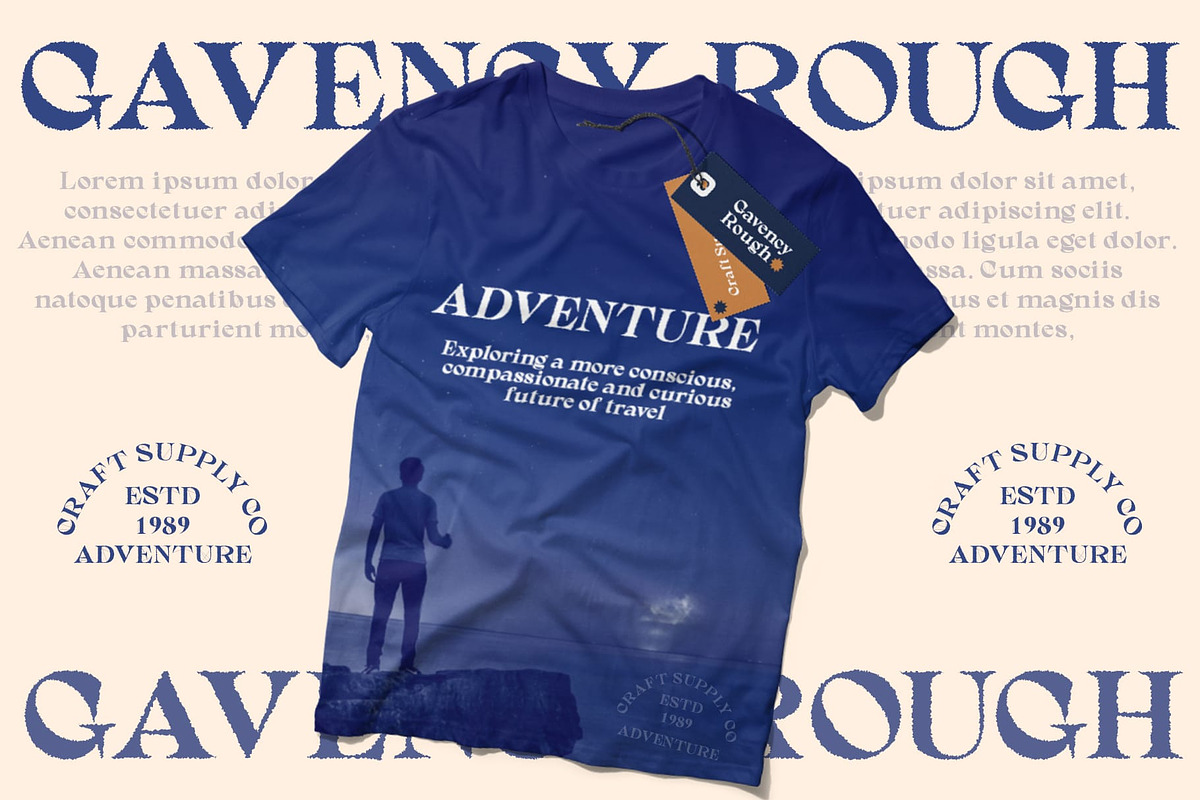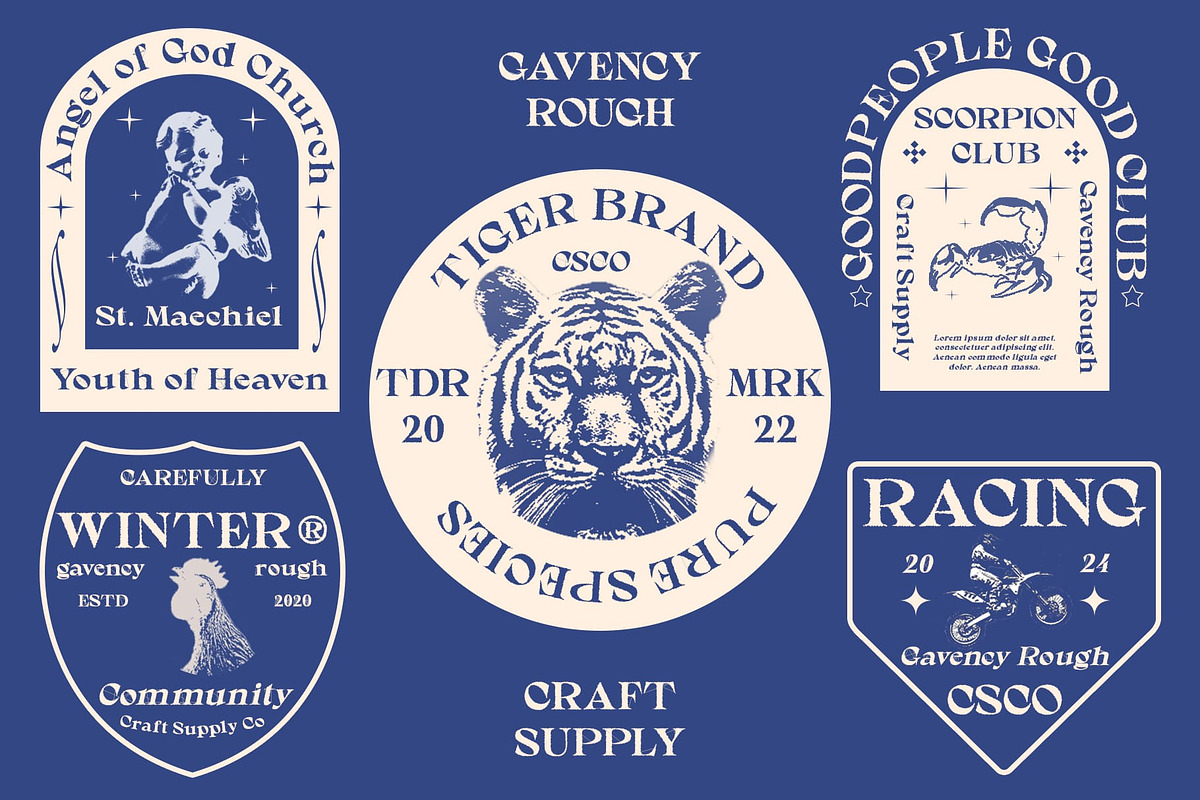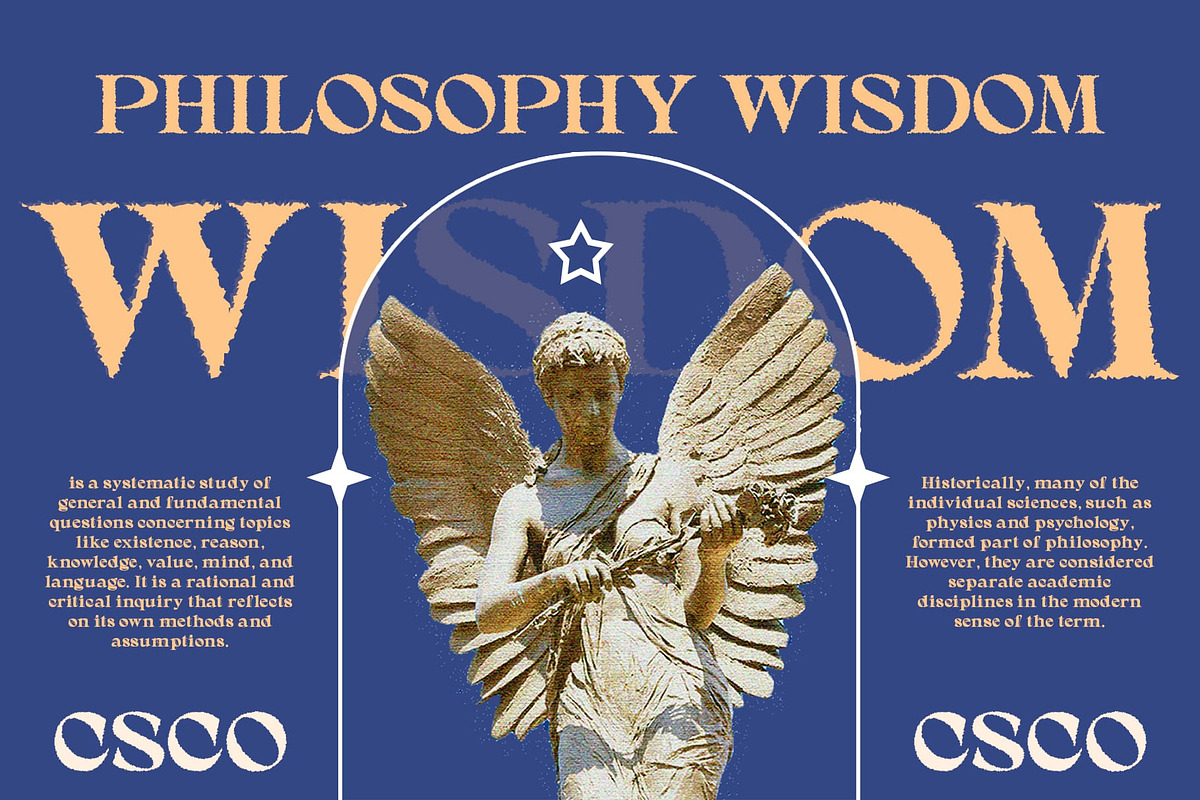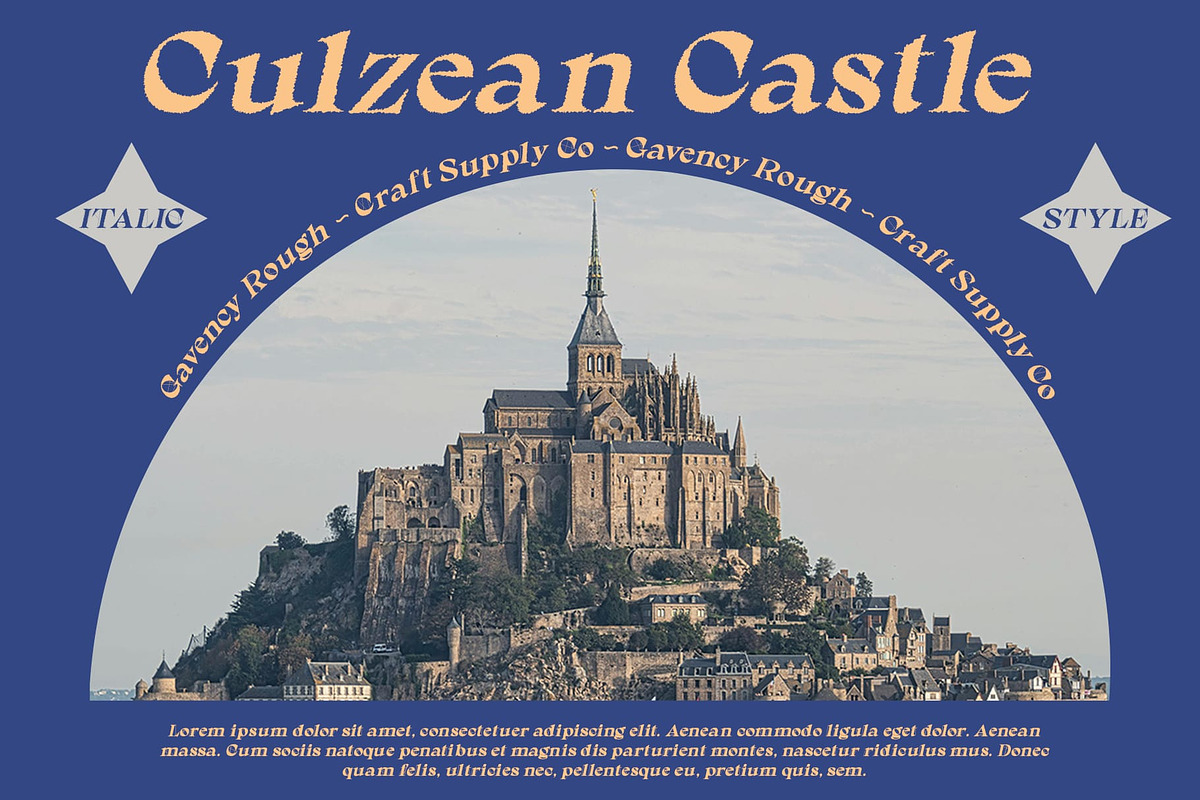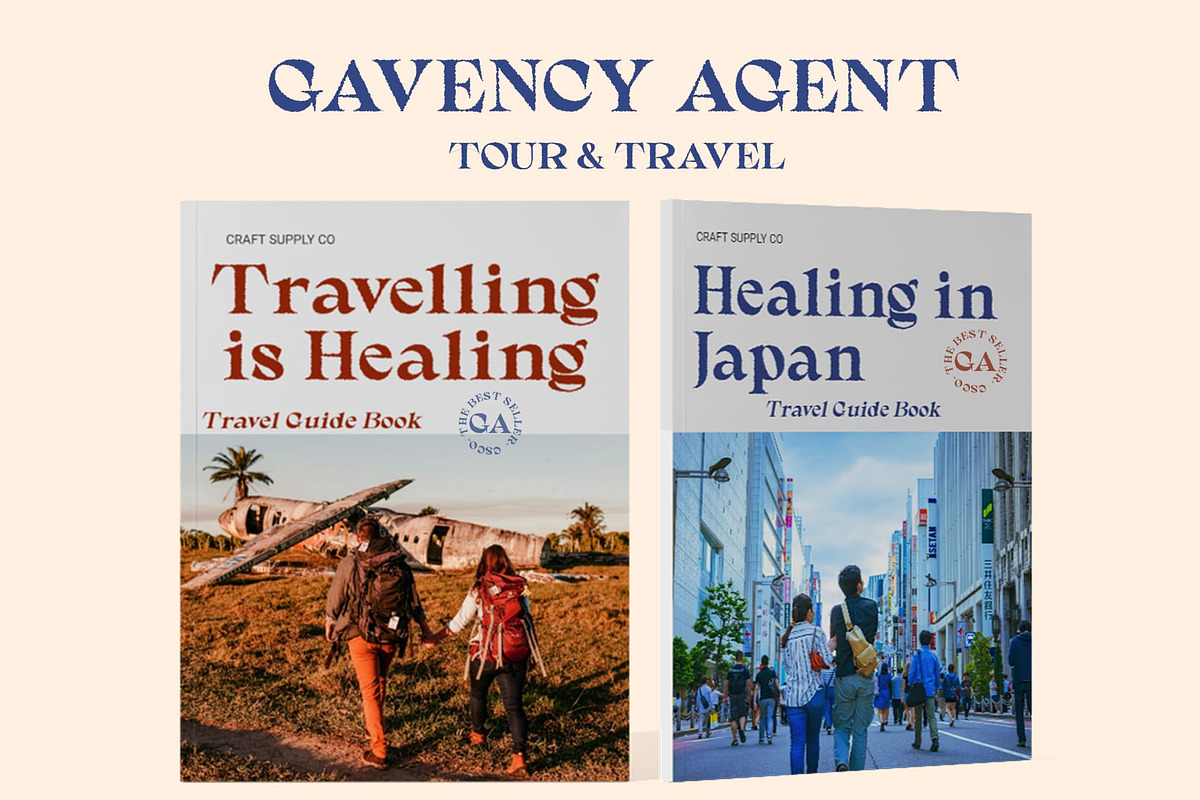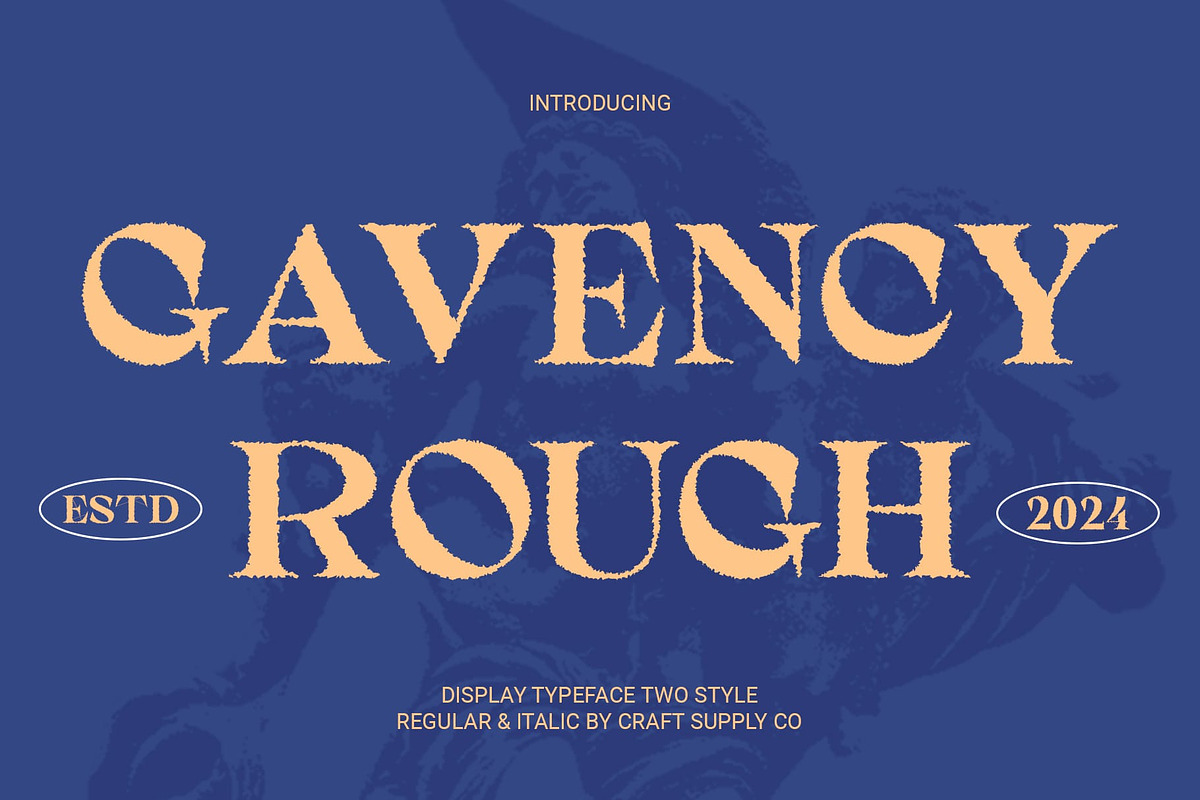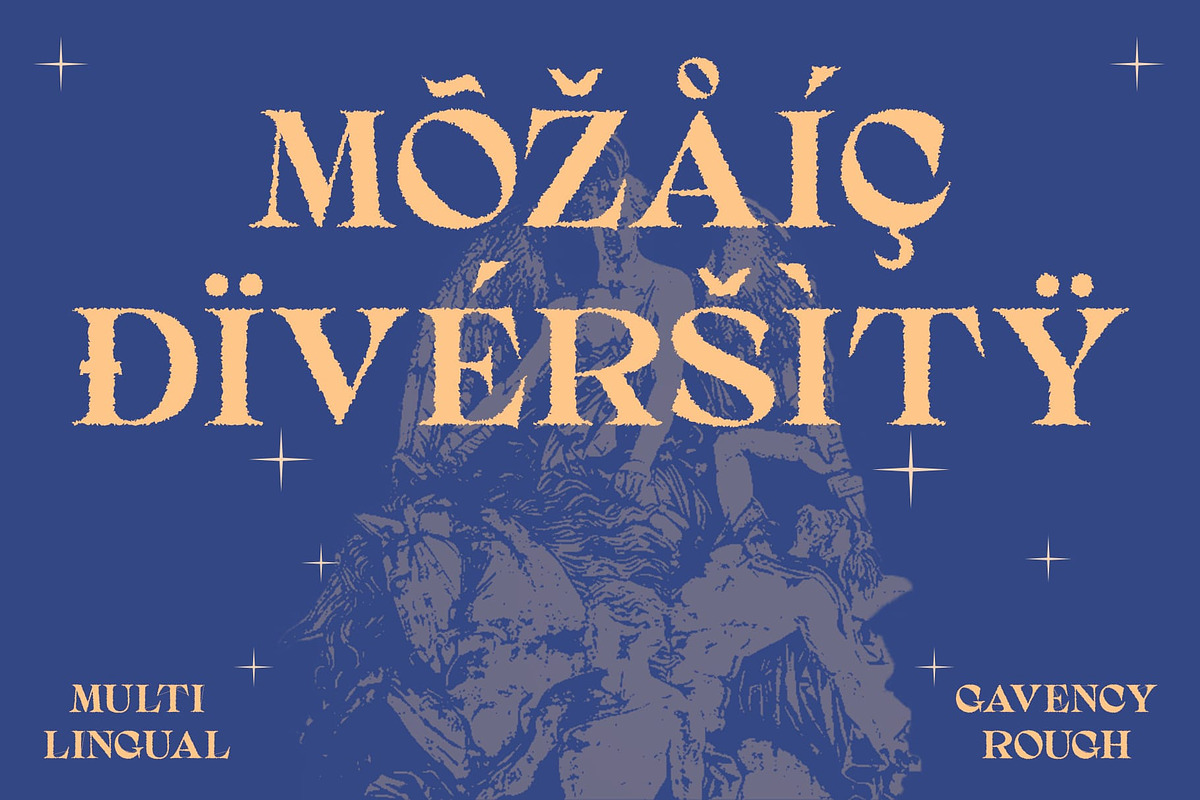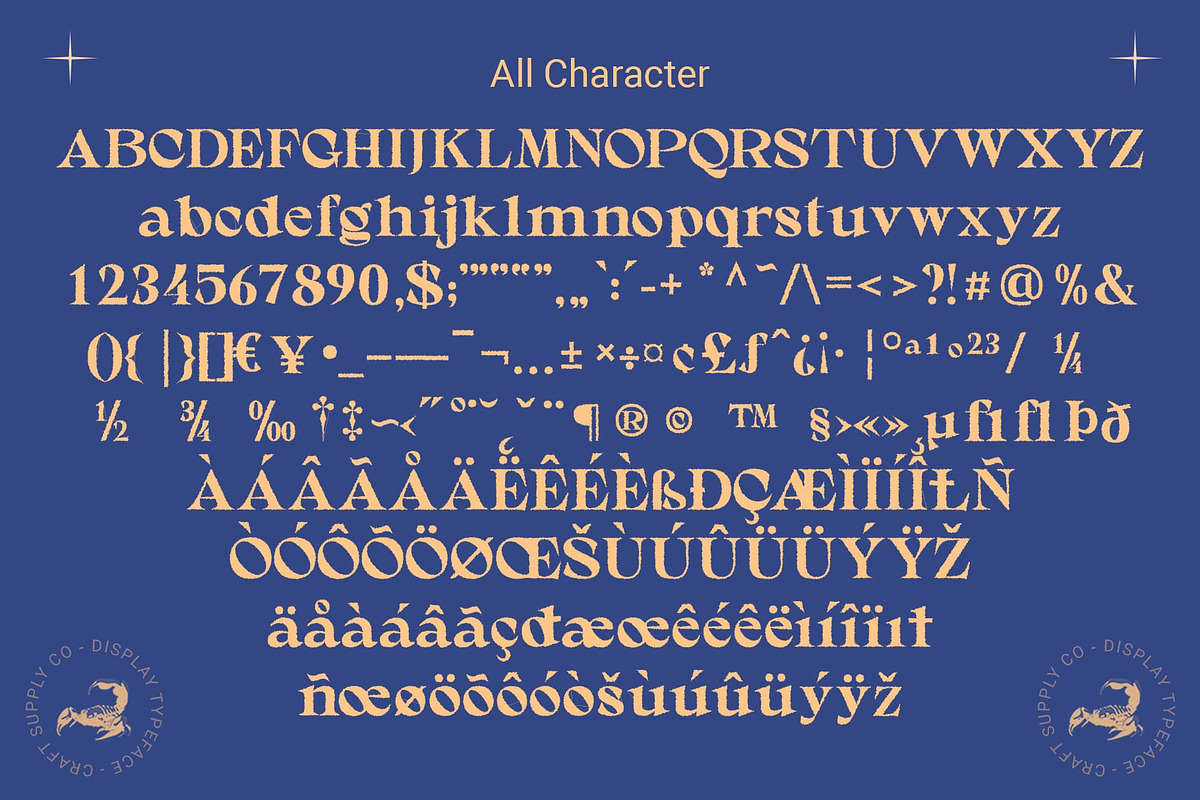
Gavency Rough
Gavency Rough: Vintage Elegance in Display Typography
Distinctive Serif Design Gavency Rough features a striking serif shape with high contrast, exuding elegance and sophistication in every character.
Authentic Vintage Appeal With its rough texture effect, This font evokes a sense of vintage charm, reminiscent of classic typography from bygone eras.
Ideal for Display Projects Tailored for display use, This font is perfect for projects that require a touch of vintage flair, such as branding, posters, and editorial design.
Versatile and Eye-catching Beyond its vintage appeal, This font offers versatility, ensuring eye-catching results across various design applications, from digital platforms to printed materials.
Timeless Vintage Charm This font stands as a testament to timeless vintage charm in display typography. Its distinctive serif design, high contrast, and rough texture effect combine to create a font that is both elegant and eye-catching, suitable for a wide range of design projects. Experience the allure of This font and infuse your designs with vintage sophistication.